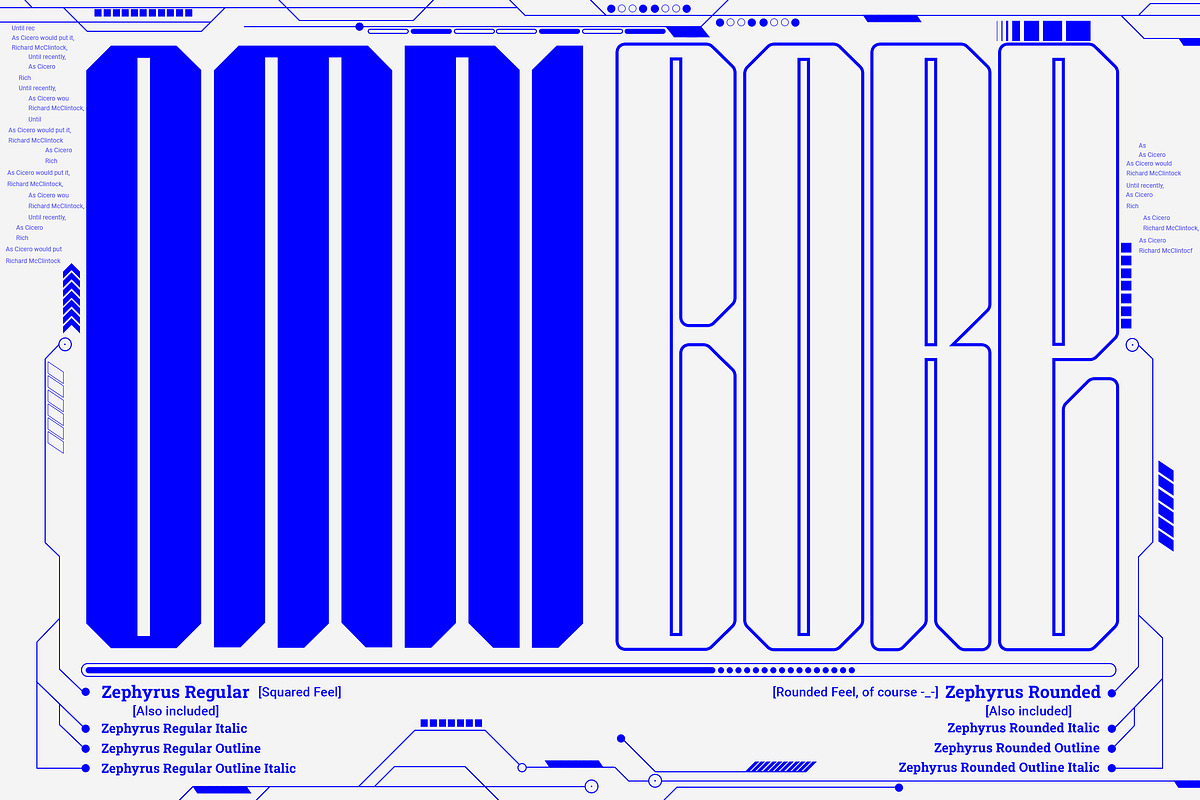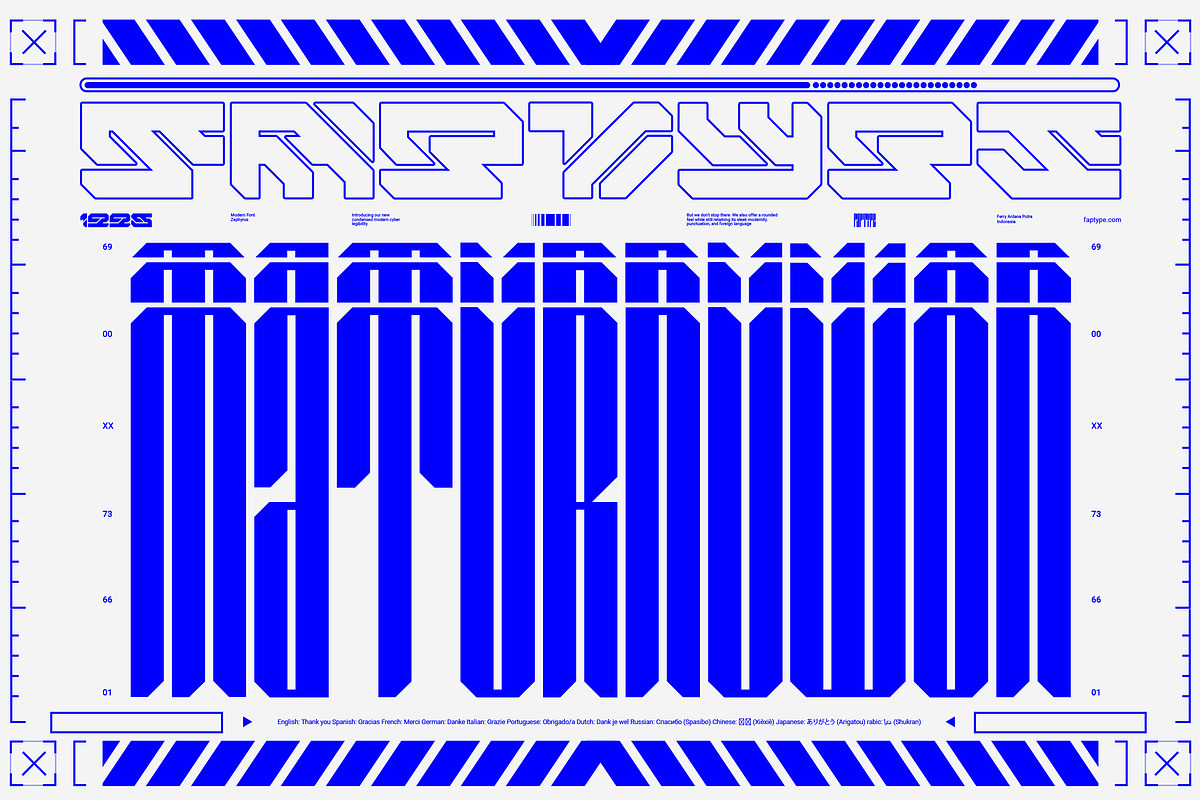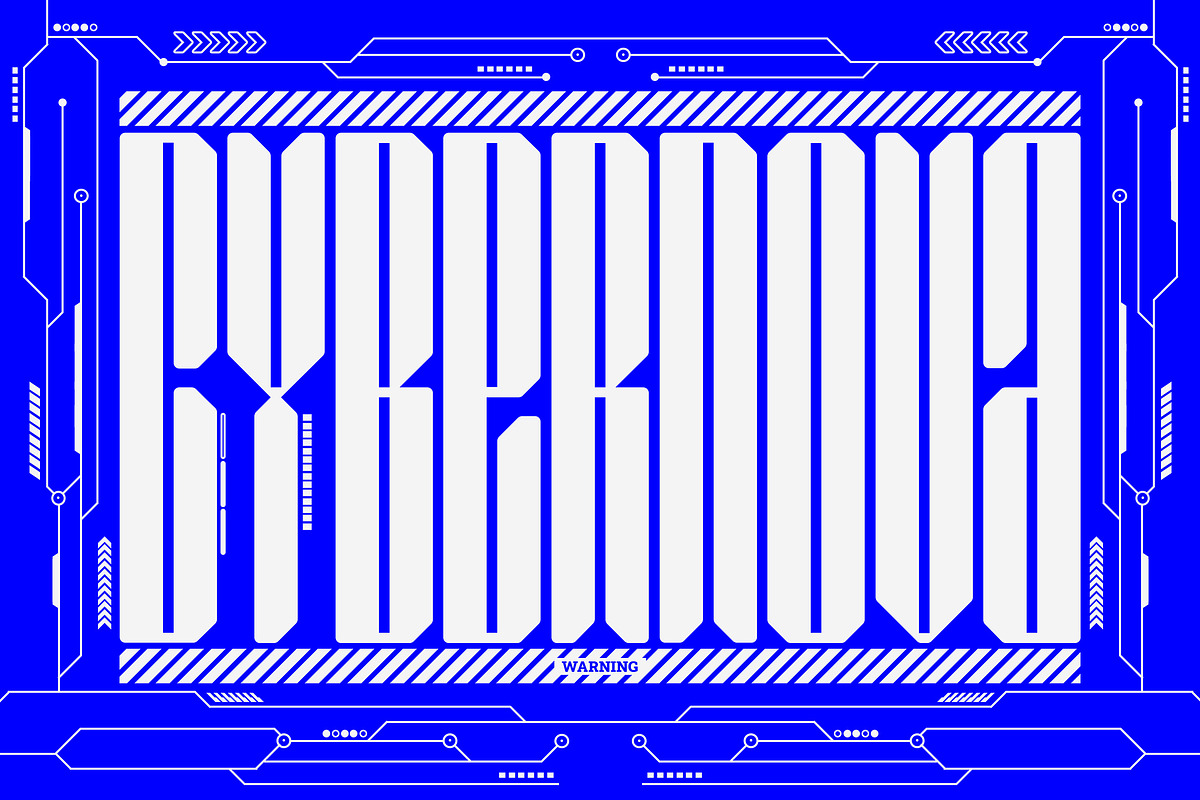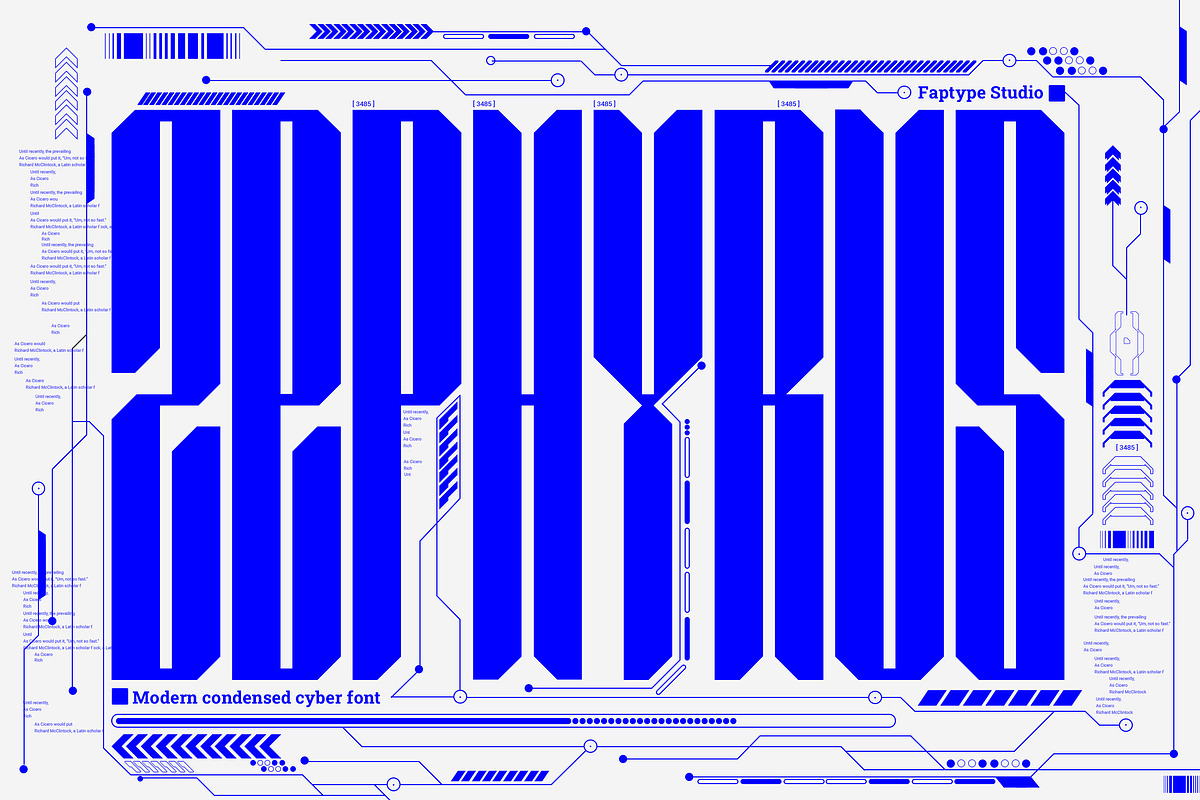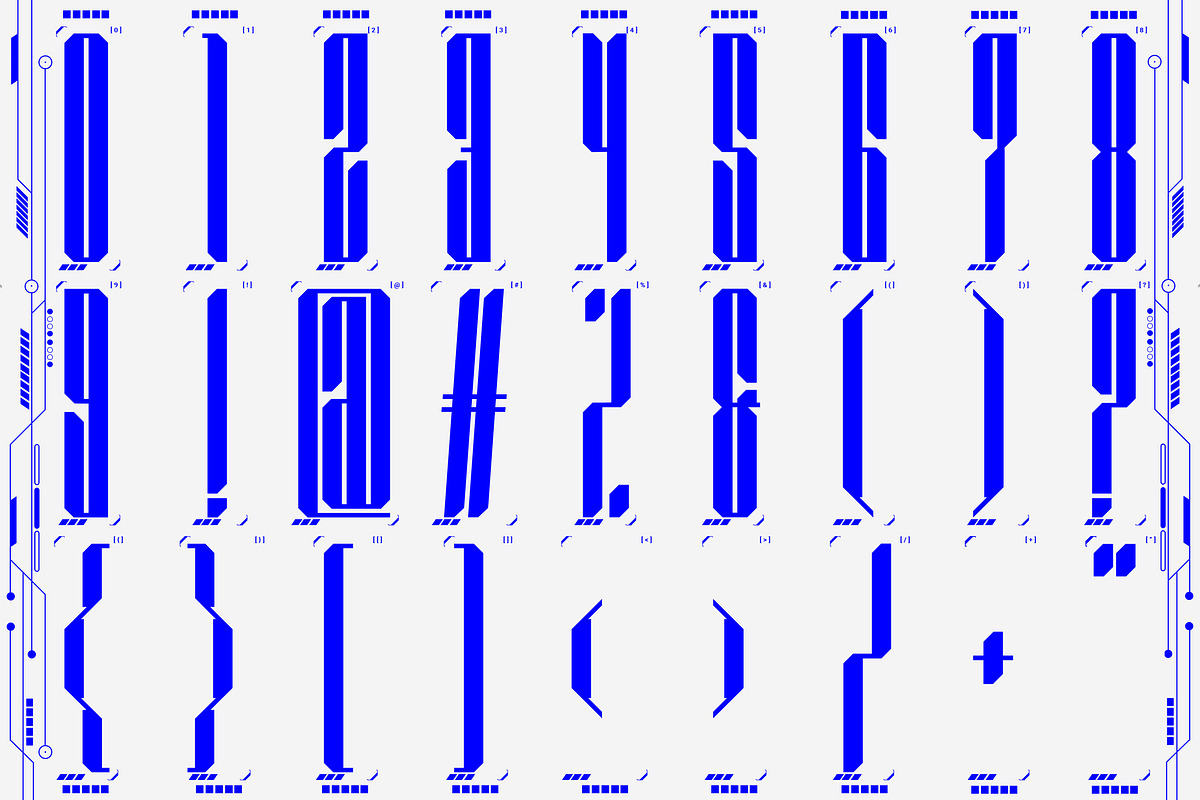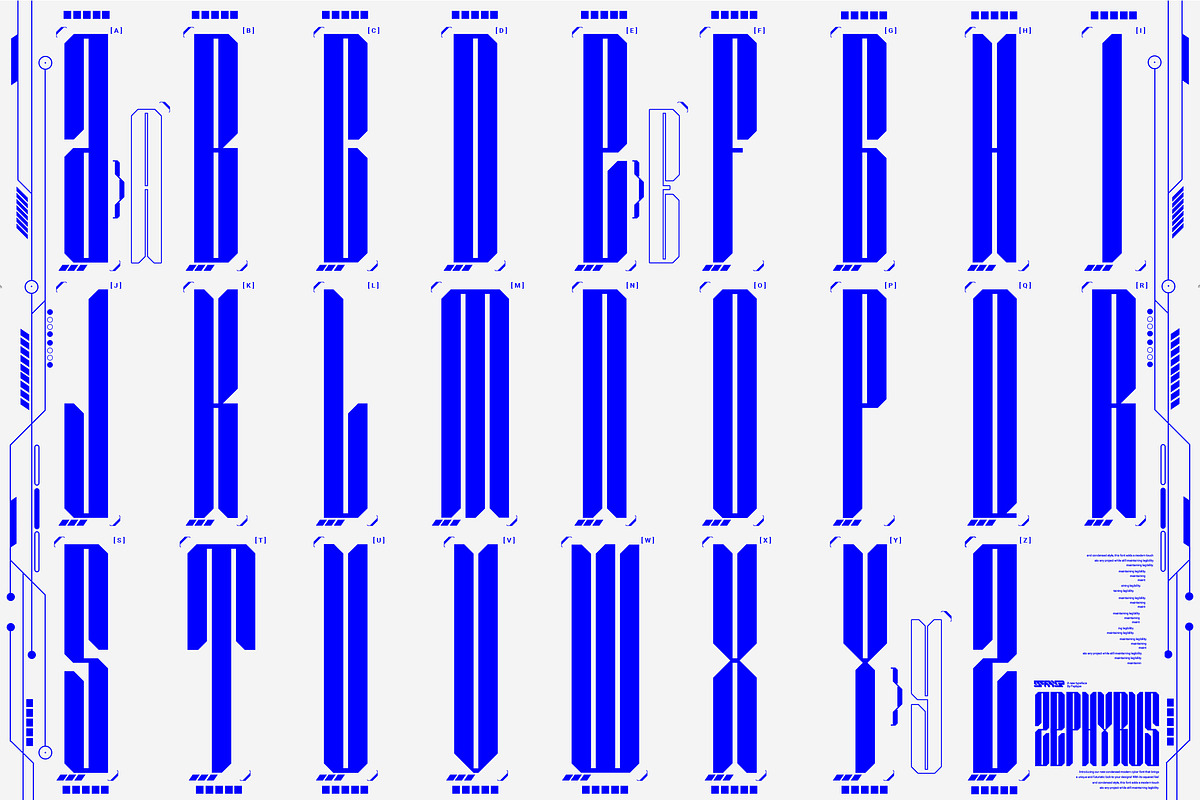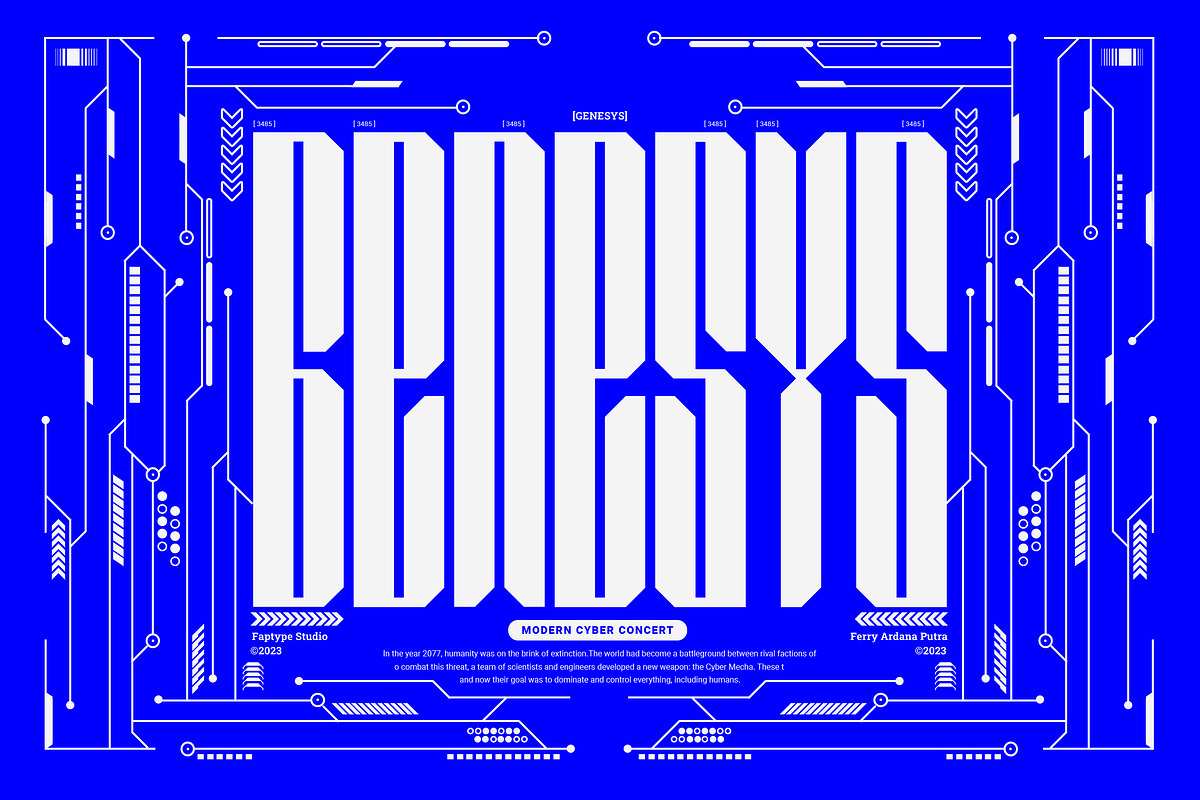
Zephyrus | Modern Condensed Cyber
Introducing Zephyrus, our new condensed modern cyber font that's designed to take your designs to the next level! With its unique condensed squared feel, this font is perfect for anyone looking to add a modern and futuristic touch to their work.
But we didn't stop there - we've also included a rounded version of Zephyrus, which softens the edges and provides a more approachable feel. This versatility means that you can use Zephyrus for a wide range of design projects, from logos and branding to websites and digital presentations.
In addition, Zephyrus comes equipped with numerals, symbols, punctuation, and foreign language support, making it a versatile and functional font that's suitable for global projects. Whether you're creating a tech-based project or looking to add a futuristic touch to your branding, Zephyrus has you covered.
Zephyrus is a great font for modern and futuristic designs. Its unique condensed squared feel and rounded version make it a versatile choice for a wide range of design applications.
Here are some perfect use cases for Zephyrus font:
- Technology-based websites and apps: Zephyrus is an excellent choice for designing websites and apps that focus on technology and innovation. Its modern and futuristic design complements the content of these websites and apps and creates an atmosphere of innovation.
- Corporate branding: Zephyrus can be used to create a modern and innovative corporate branding identity for companies in the technology and innovation sectors. It is perfect for creating logos, letterheads, business cards, and other branded materials.
- Advertising campaigns: Zephyrus is perfect for advertising campaigns that require a futuristic or high-tech look and feel. It can be used in print ads, online ads, and other promotional materials to create a sense of innovation and modernity.
- Product packaging: Zephyrus can be used to create packaging design for technology-based products. Its modern and futuristic design can help these products stand out on shelves and create an impression of innovation and quality.
- Presentations: Zephyrus is a great choice for creating compelling and modern presentations. Its unique design can add an element of creativity and innovation to your presentations and help you stand out from the competition.
- Video game design: Zephyrus can be used to create video game design that requires a futuristic or cyberpunk style. Its unique design can help create an immersive gaming experience for players.
In conclusion, Zephyrus is the perfect choice for anyone looking for a condensed modern cyber font that's both versatile and functional. With its squared feel, rounded version, and support for numerals, symbols, punctuation, and foreign languages, Zephyrus is a font that's sure to take your designs to the next level!
Zephyrus features:
- A full set of uppercase
- Multilingual language support
- OpenType Features
- Cyber Style
- +278 Total Glyphs